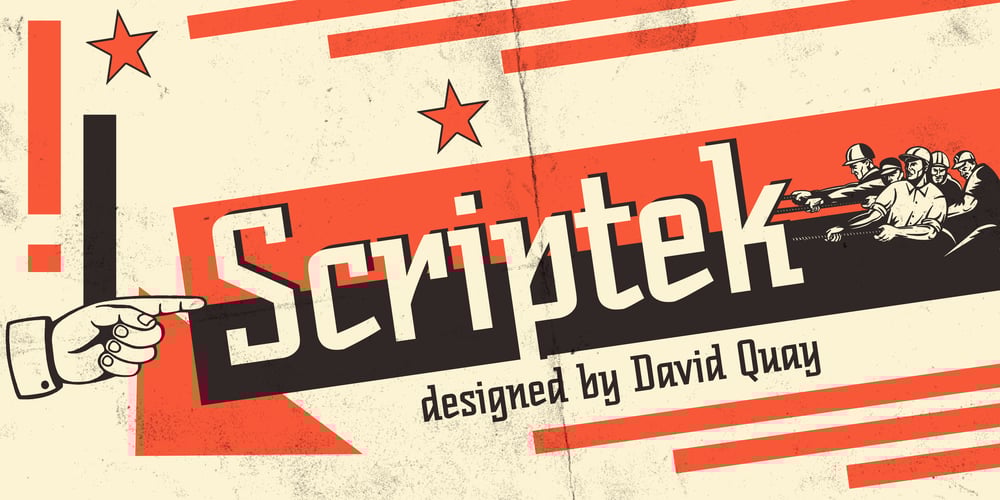
Scriptek Font Family was designed by David Quay and published by ITC. Scriptek contains 2 styles and family package options. Scriptek was created by British designer David Quai in 1992, based on the constructivist forms which became popular after the First World War with the progressing industrialization in Moskow. Typefaces such as Scriptek were often used in the propaganda of totalitarian political systems and can still be seen on monuments like the central train station in Milan or political posters of the 1930s and 40s. The robust Scriptek has strong serifs in the upper left and lower right of characters and this, together with the diagonal strokes of many lower case letters, gives the font a dynamic feel. Scriptek is best used for headlines and display.